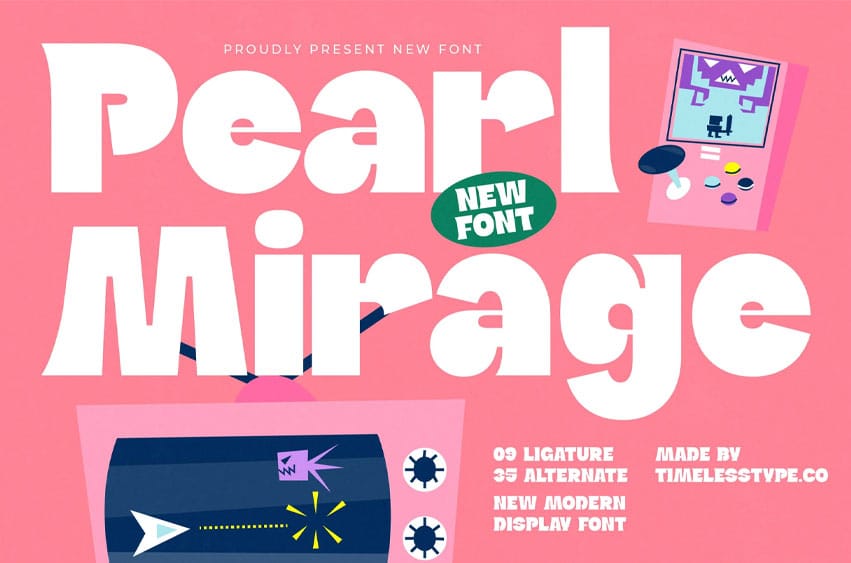
Pearl Mirage Font is a bold modern display font with chunky retro curves, playful proportions, and clean geometric shaping that instantly gives your designs a fun, youthful, and vibrant pop, making it perfect for kids branding, playful packaging, gaming visuals, toy logos, colorful posters, and any creative project that needs a strong, cheerful personality.